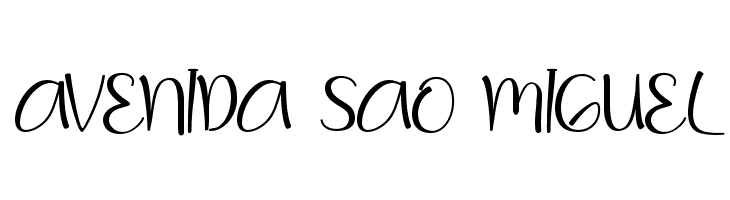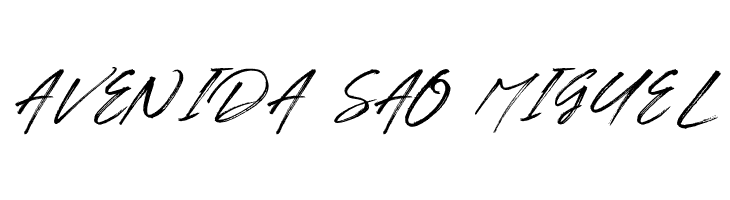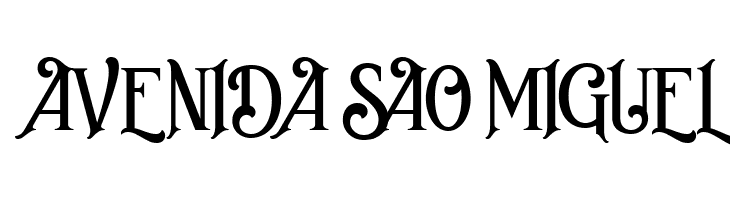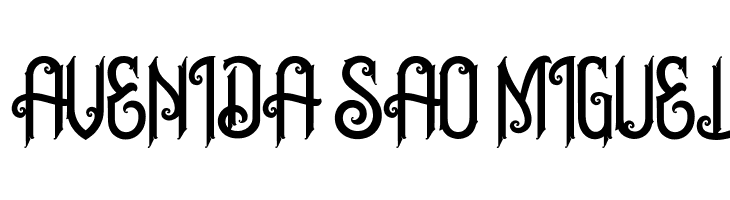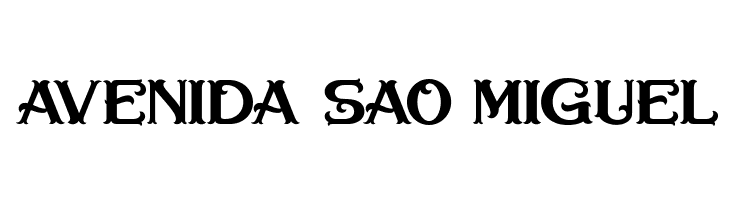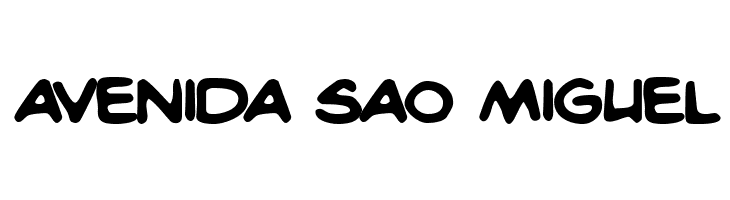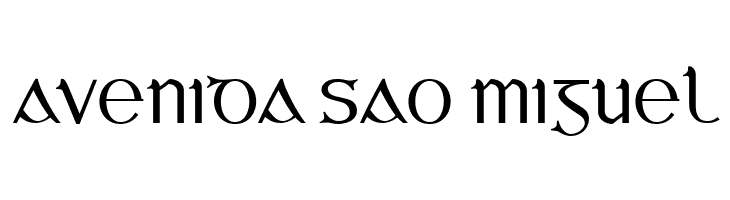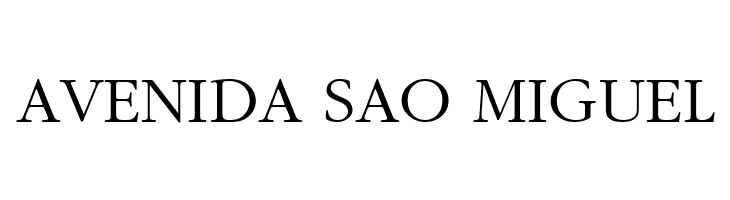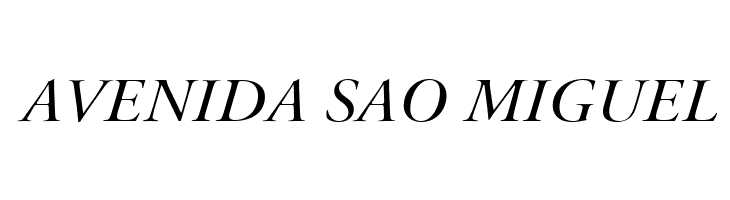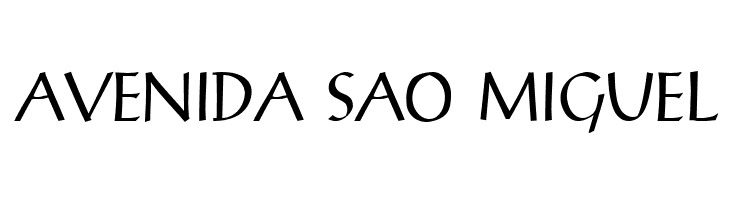
A dynamic, brush-style font with expressive, hand-painted strokes.
A dynamic, brush-style font with expressive, handwritten strokes.
A playful, dotted font with a bubble-like appearance, perfect for creative projects.
A bold, handwritten-style font with a playful and dynamic appearance.
A bold, modern font with Gothic influences and high contrast strokes.
A bold, decorative font with intricate serifs and artistic flourishes.
A bold, modern sans-serif font with geometric influences and excellent readability.
A bold, textured font with a dynamic, melting appearance.
A bold, modern sans-serif font with a clean and geometric design.
A bold, modern font with thick, uniform strokes for high legibility.
A bold, distressed font with a dripping effect, perfect for horror themes.
A playful and elegant script font with a modern, handwritten style.
An ornate and decorative font with Gothic influences, featuring elaborate letterforms.
An ornate and decorative font with intricate curves and flourishes.
A bold, hand-drawn font with an ancient Roman inscription style.
A dynamic blend of calligraphy and graffiti with fluid, artistic strokes.
A playful handwritten font with smooth, rounded strokes and a casual style.
A decorative and bold font with ornate uppercase and straightforward lowercase letters.
A bold, italicized font with a dynamic and modern style.
A bold, blocky font with a strong, modern presence.